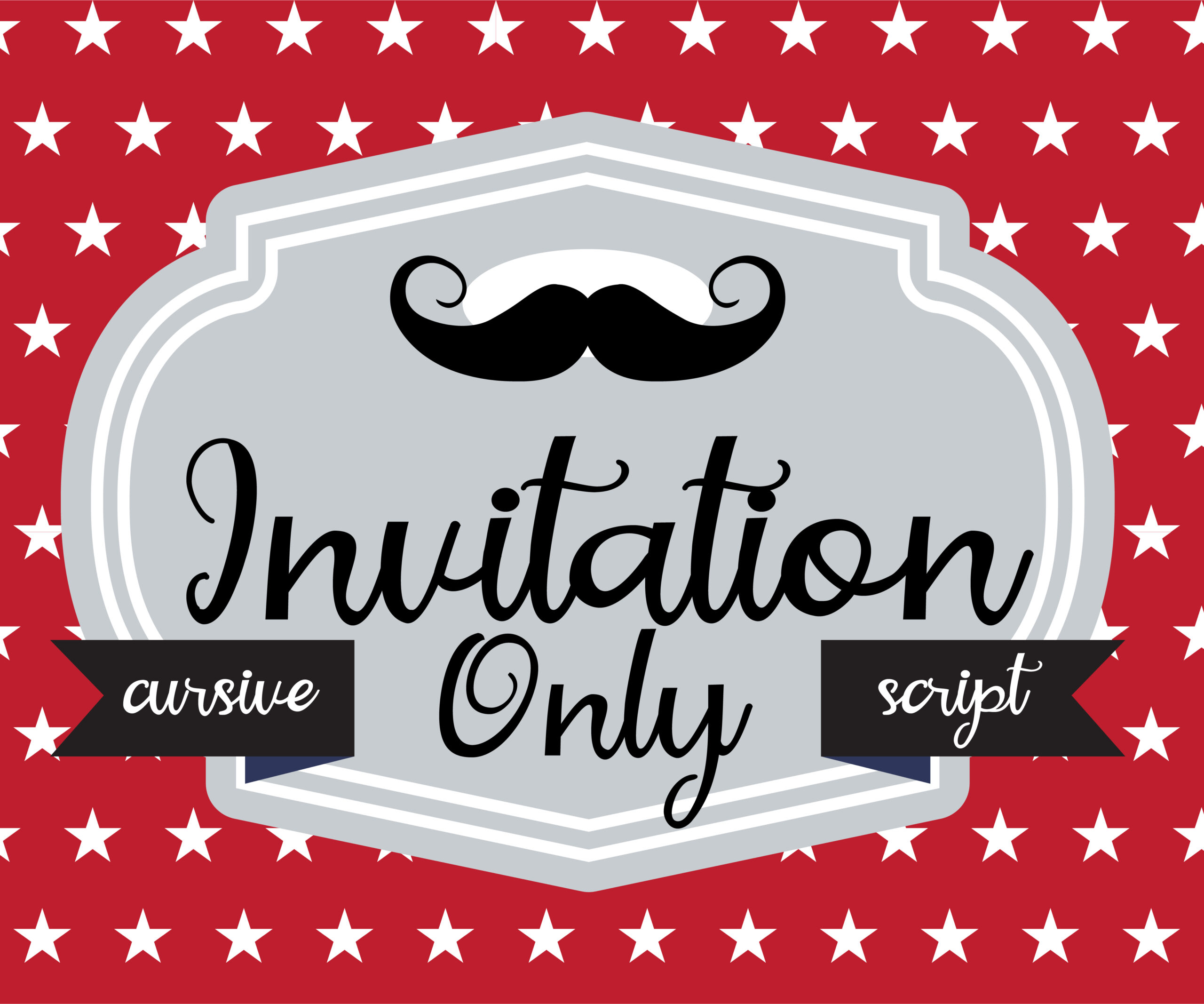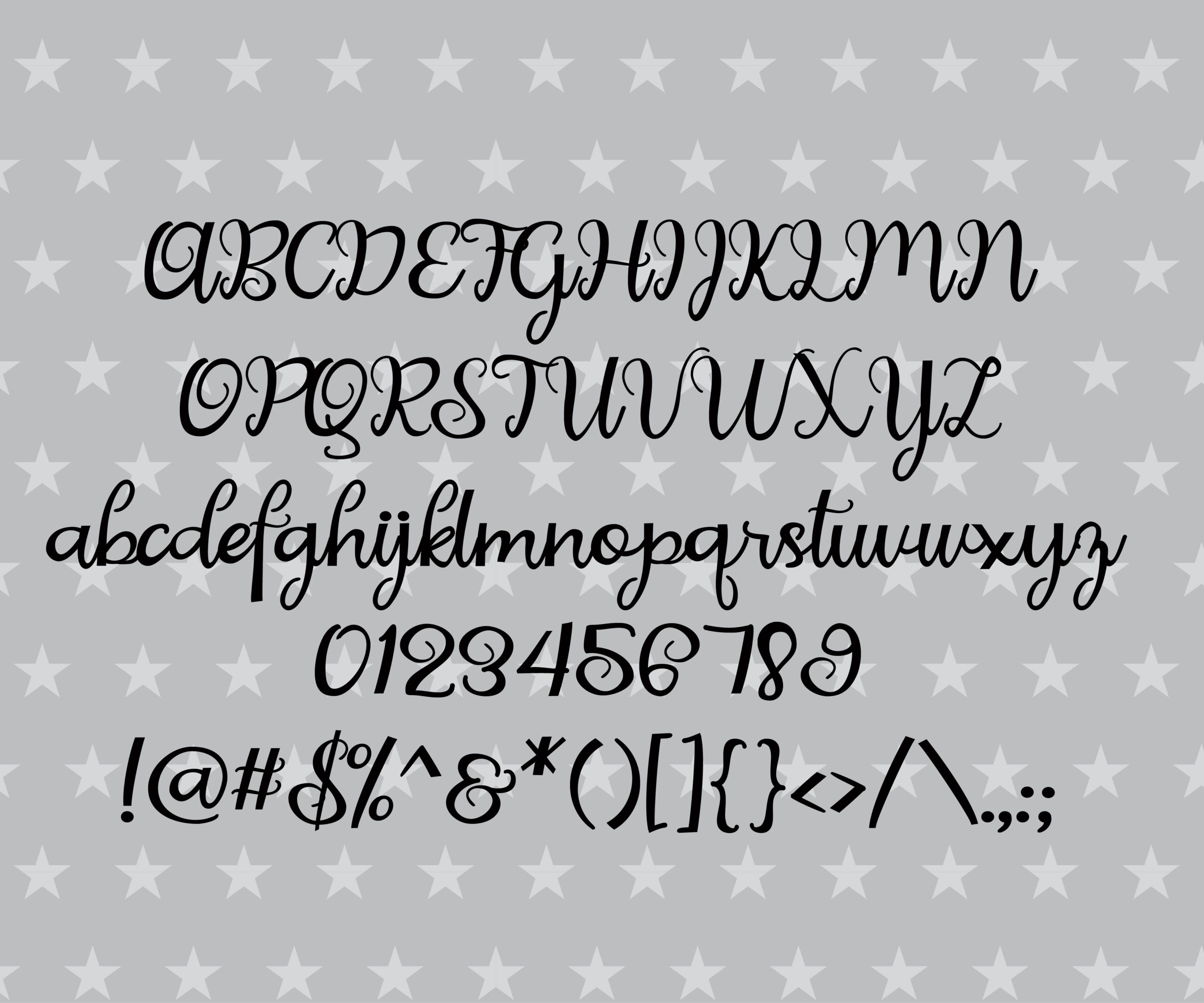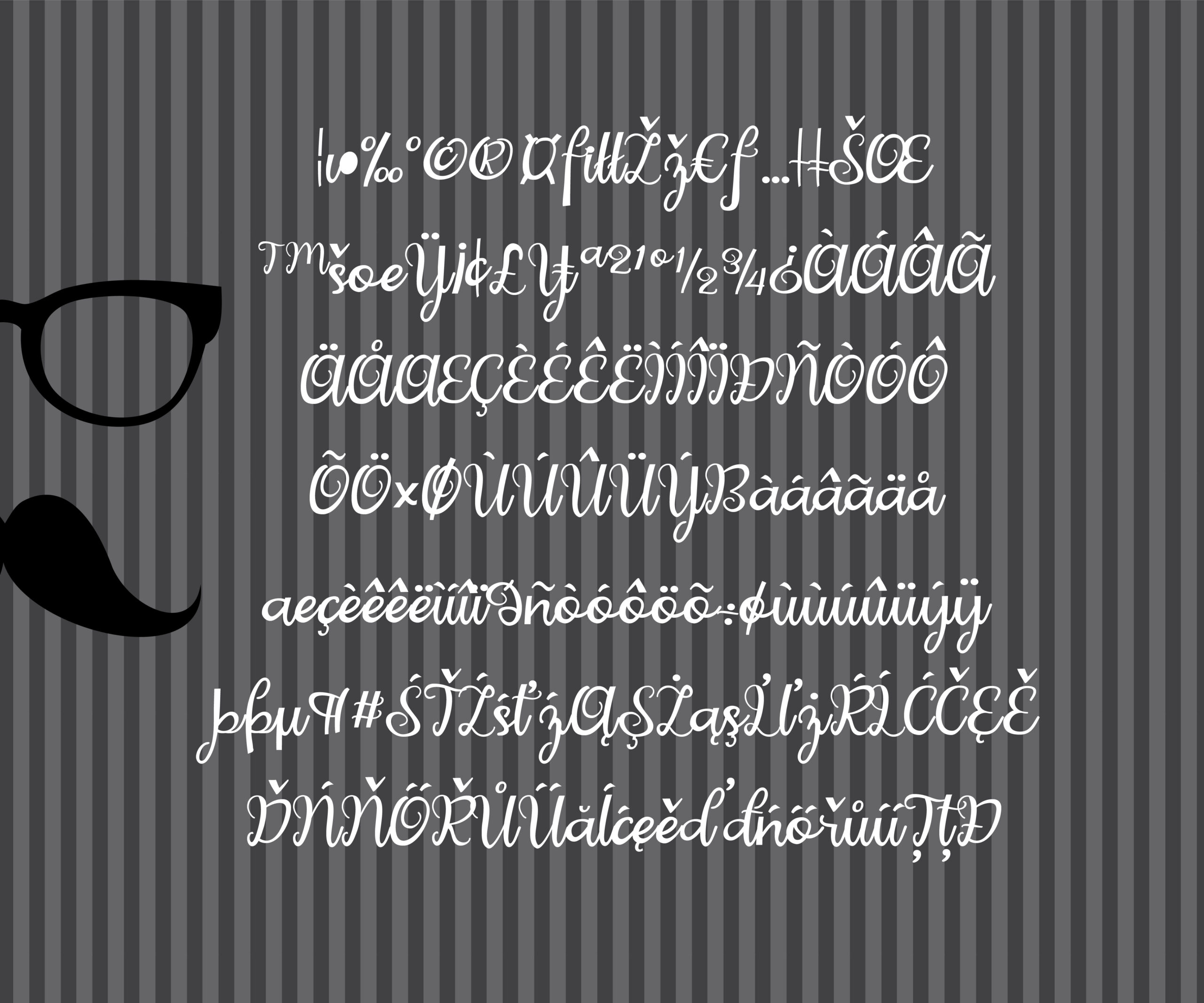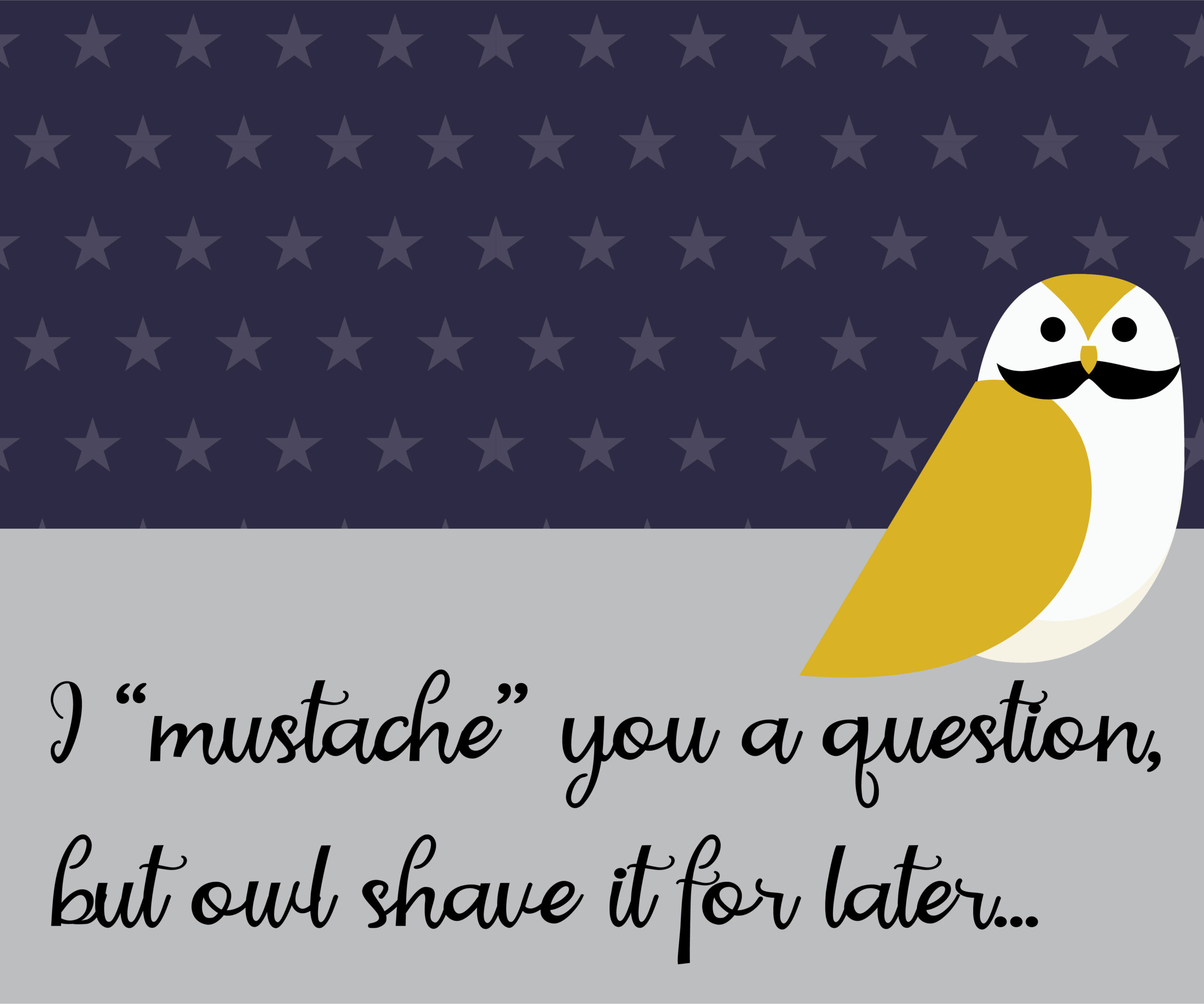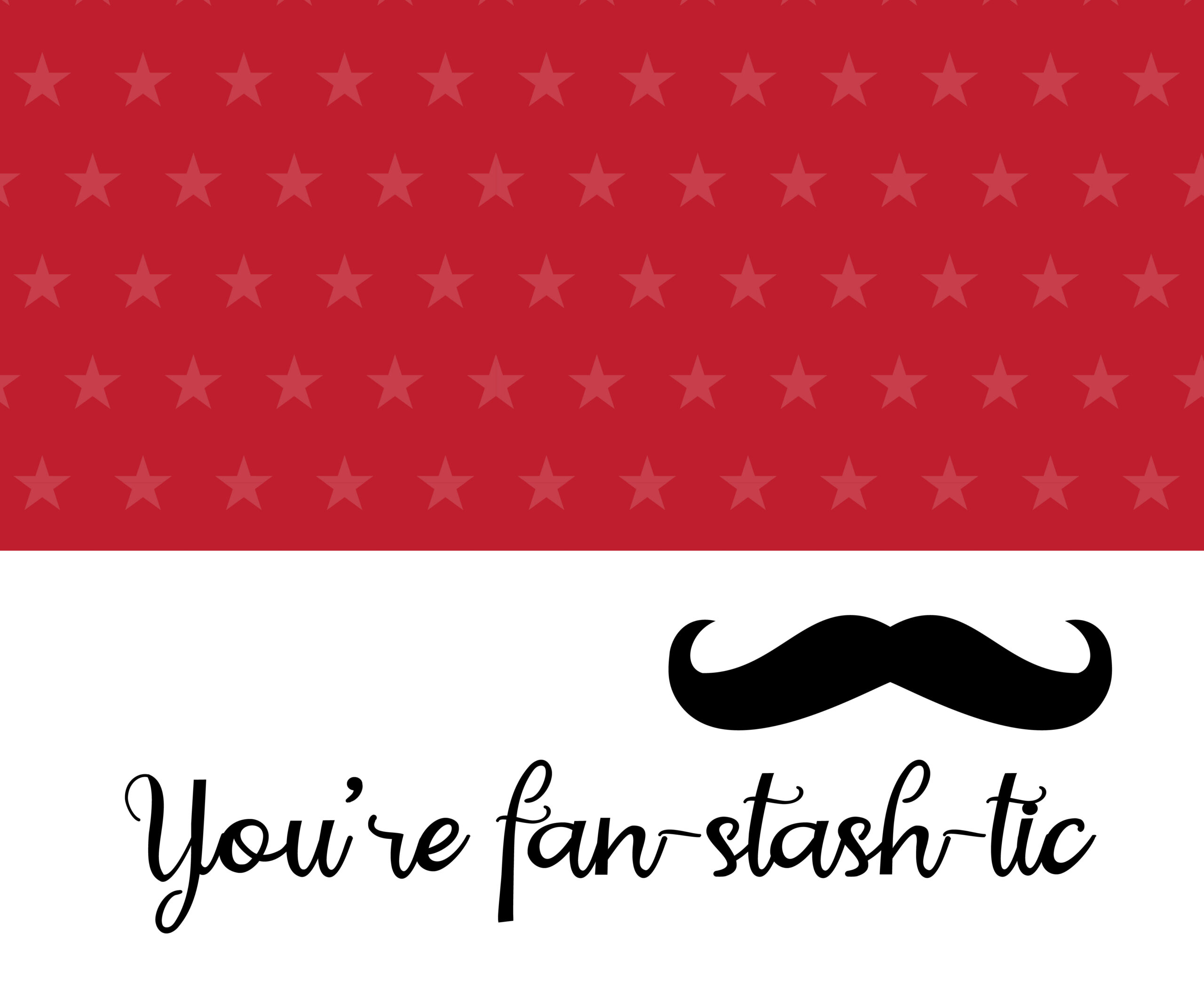
Invitation Only Font
About Invitation Only Font
Invitation Only is a pretty script font has a formal uppercase, yet still has a casual feel. Use this font a wide range of projects when you want to have a friendly, relaxed vibe!